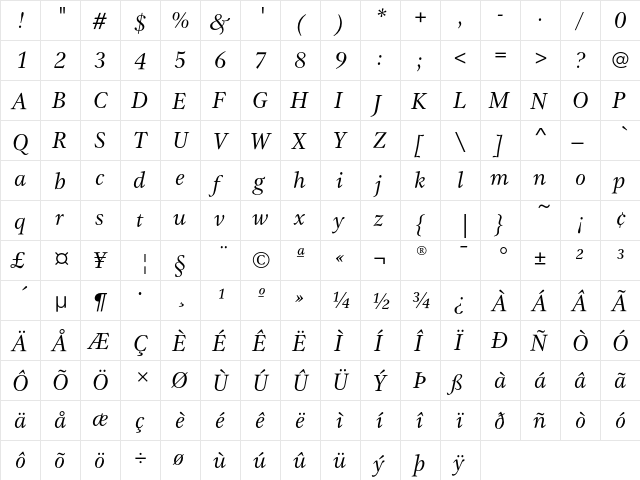
GammaEF BookItalic
Design Context for GammaEF Typeface
GammaEF offers clean, dependable letterforms without strong stylistic allegiance, making it a practical choice for designers who need flexibility. Its italic angle brings a sense of urgency and motion to the letterforms.
Pro Tip: Use GammaEF for emphasis, pull quotes, and subheadings where its slanted energy can add rhythm to the layout.